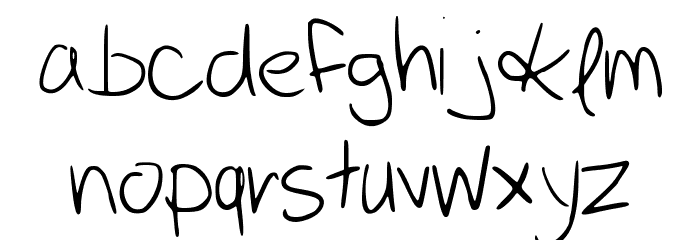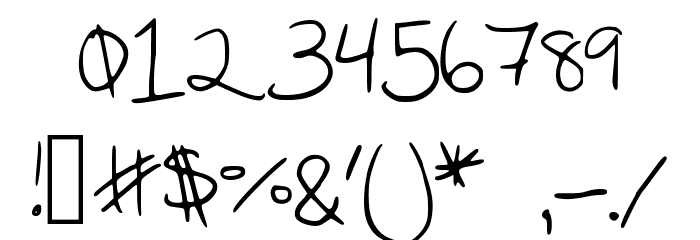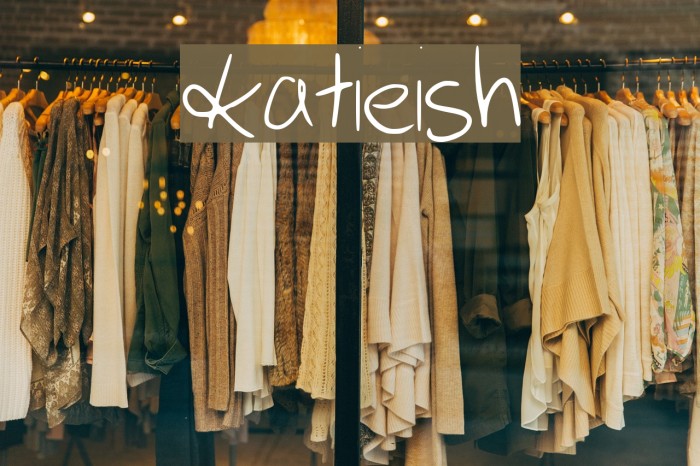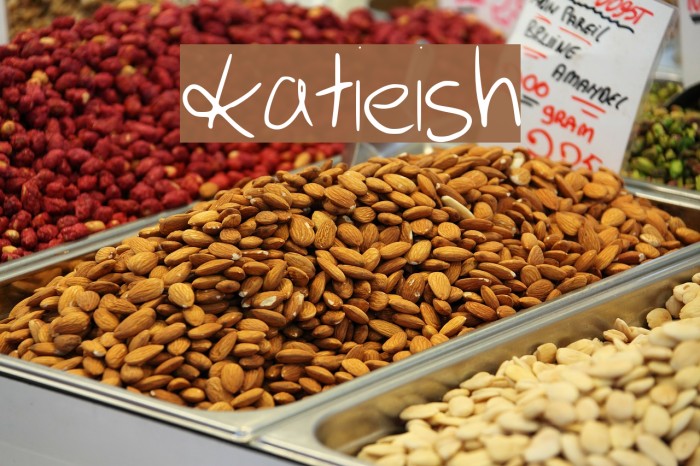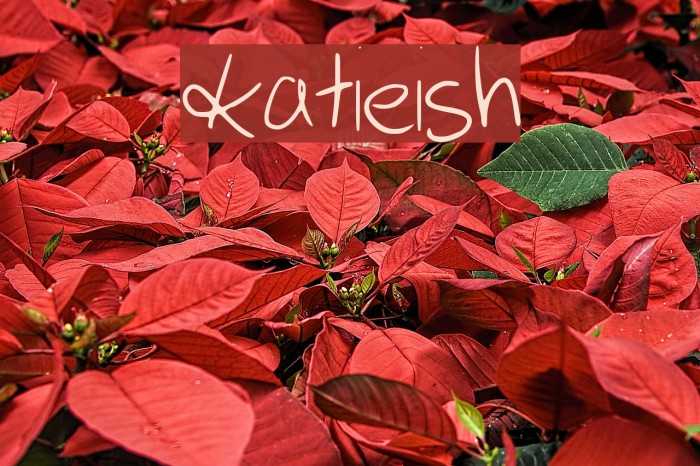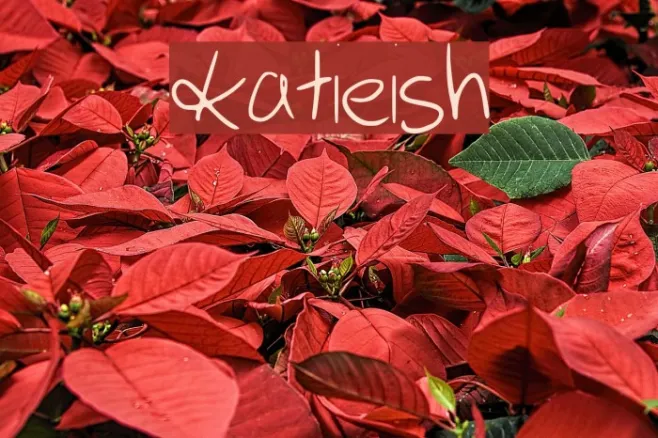
katieish Font
This font features a playful and casual handwritten style, characterized by its loose and informal strokes. The letters have a natural flow, with slightly irregular shapes that give it a personal and approachable feel. The uppercase and lowercase letters maintain a consistent style, with rounded edges and varying line thicknesses that add to its charm. The numerals and special characters are crafted with the same whimsical touch, making it suitable for creative and informal projects. Its overall appearance is friendly and inviting, perfect for adding a personal touch to any design.
A playful and casual handwritten font with a whimsical and friendly style.
- Proposed Projects: Ideal for greeting cards, invitations, personal branding, children's books, and creative social media graphics.
- Category: Handwritten
- Overall Style: Casual
- Use Case: Logos, Headlines, Informal text